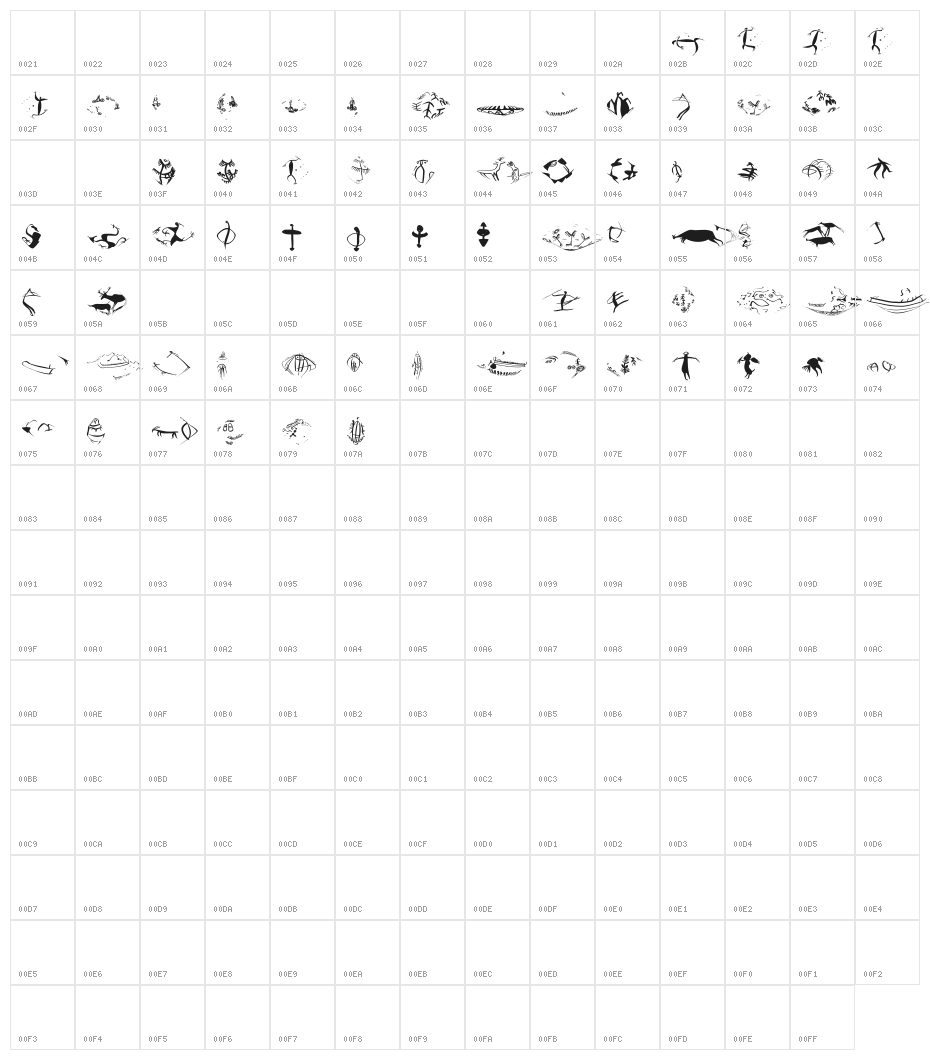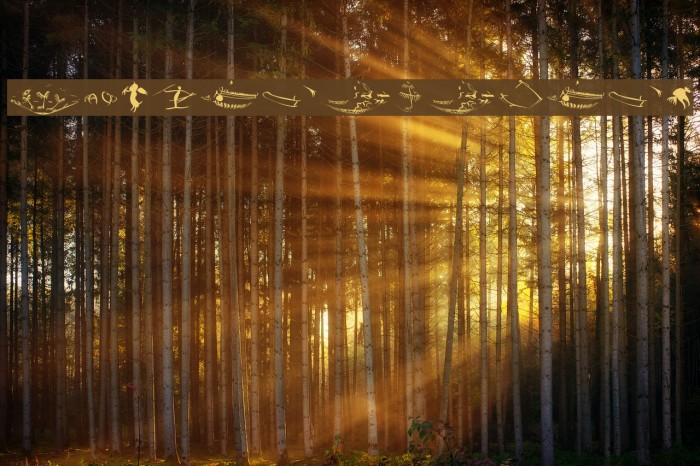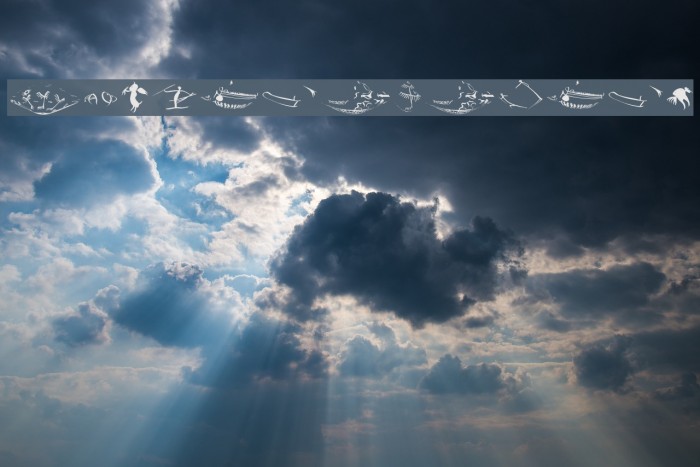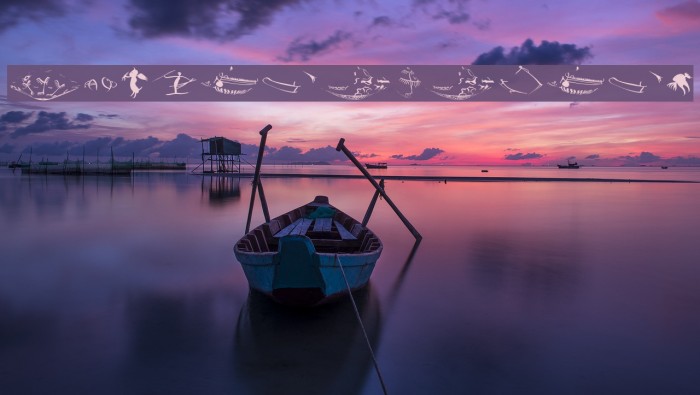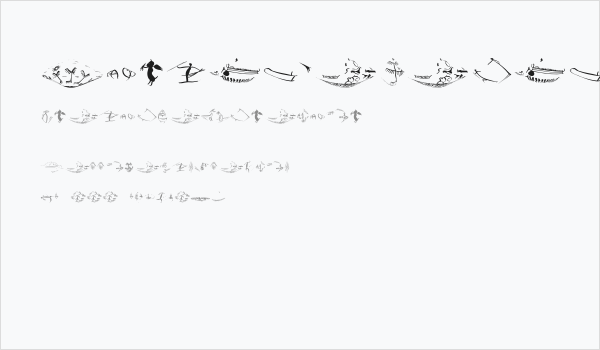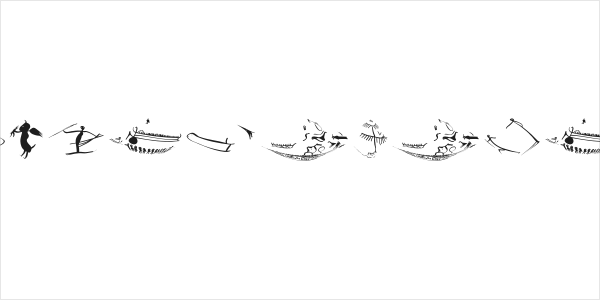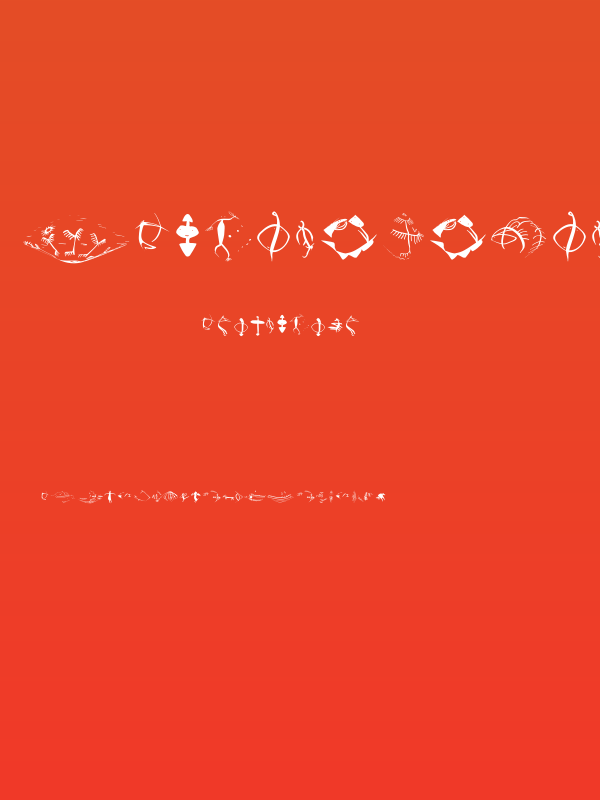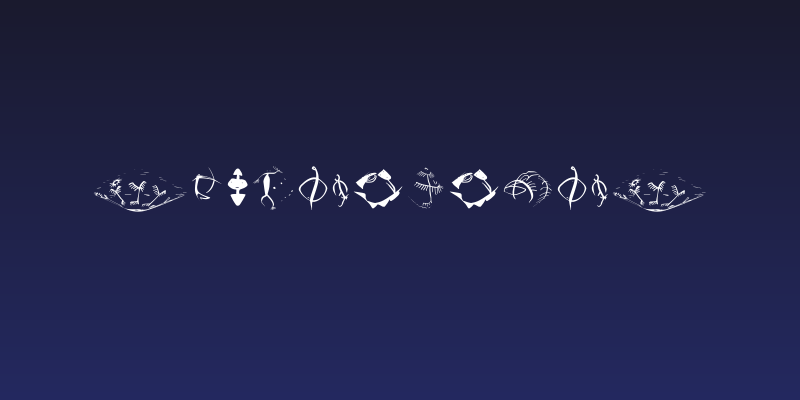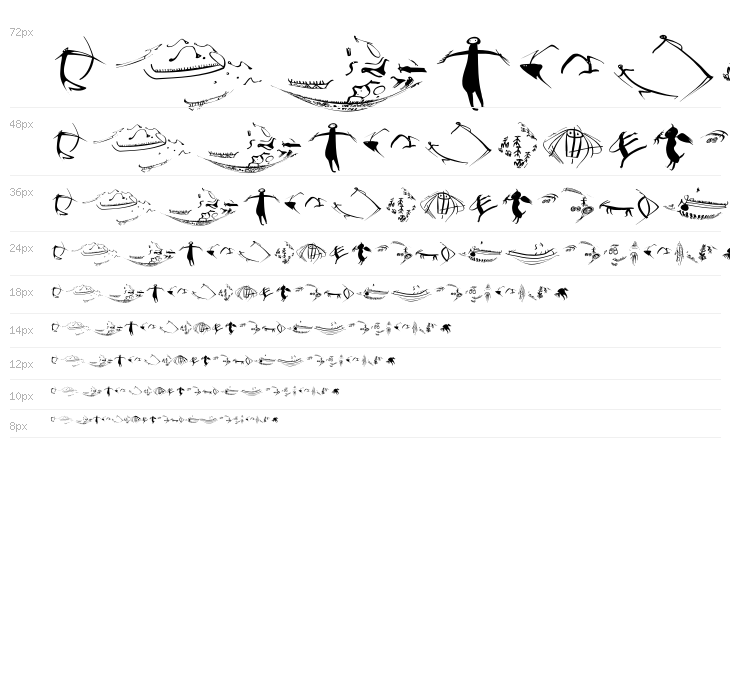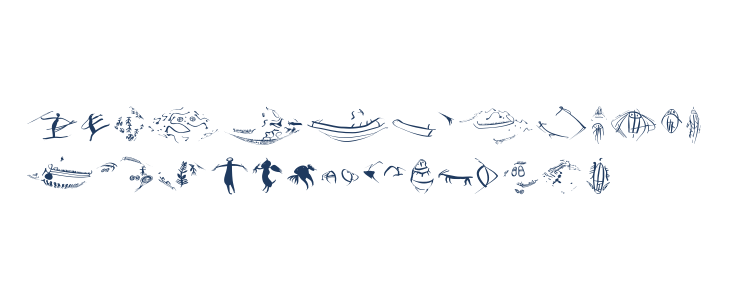
StrangeBeings Font
StrangeBeings Description
This font is a collection of whimsical and abstract shapes resembling various creatures and figures. Each character is crafted with a unique design, incorporating elements that evoke a sense of mystery and fantasy. The strokes are varied, with some characters featuring bold, thick lines while others are more delicate and intricate. The overall appearance is playful and imaginative, making it ideal for creative projects that require a touch of the unusual. The characters are not uniform in style, offering a diverse range of visual interest.
| Use Case | Logos, Artistic projects, Posters |
| Proposed Projects | Ideal for fantasy-themed posters, children's book illustrations, creative branding, and artistic projects that require a unique and imaginative touch. |